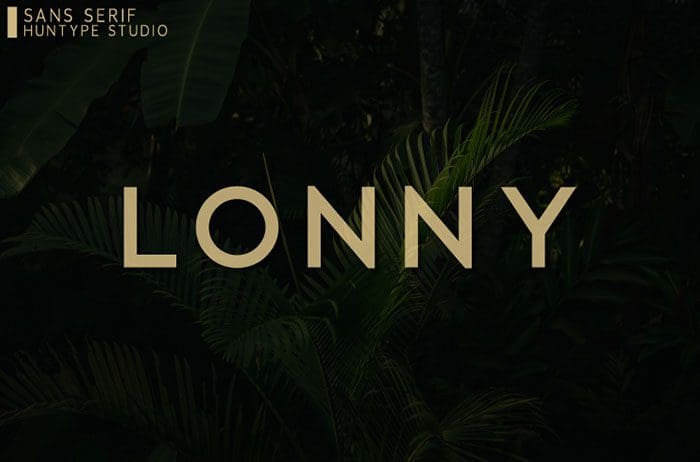
Lonny Sans Serif Font
Lonny is an elegant and classy sans serif font. It’s perfect for logotypes, headlines, branding, packaging, and much more! Thanks to Mas Anis for sharing this font! Take a look at this portfolio for more of his stunning fonts.